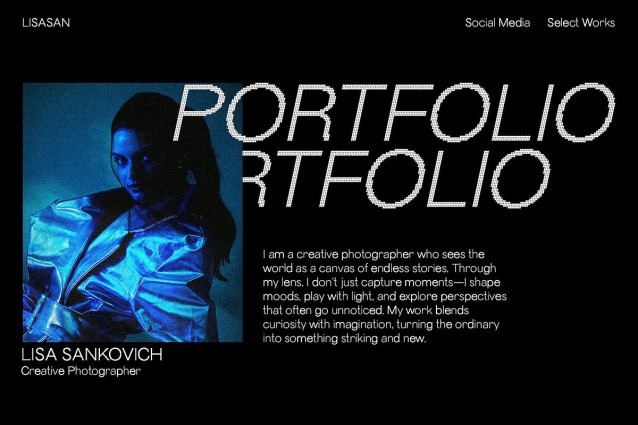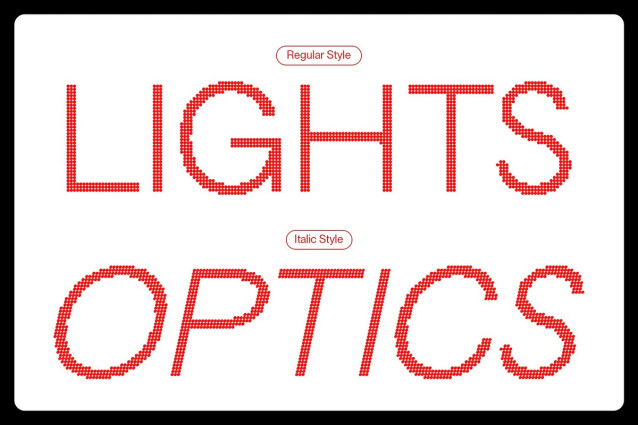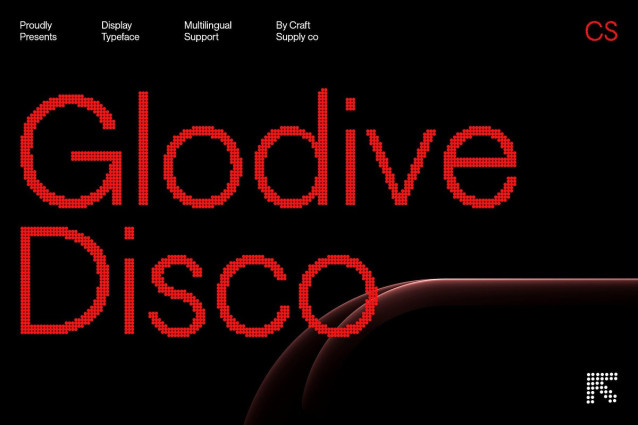
CS Glodive Disco Font – Geometric Sans Serif with Disco Sparkle This is a sleek geometric sans serif font designed to embody both modern professionalism and creative charm. With its clean structure and balanced proportions, it delivers sharp clarity for any design. What sets it apart is its subtle disco sparkle effect, which introduces a glamorous flair perfect for projects that need to balance sophistication with visual excitement.
Sleek Modern Aesthetic Crafted with precision, reflects the strength of geometric design. Its even strokes, sharp lines, and well-structured forms create a polished appearance that communicates confidence. Makes it ideal for professional uses, such as corporate branding, editorial layouts, and promotional materials that demand a modern typeface.
Glamour Through Sparkle Effect The disco-inspired sparkle effect transforms this geometric font into something extraordinary. It adds a sense of motion and brilliance, giving headlines, titles, and logos a distinctive edge. This detail makes not just a font but a design statement blending the structure of modern sans serif with the playful energy of disco aesthetics.
Versatility for Creative Projects Whether you’re designing for fashion, luxury branding, or innovative digital campaigns, adapts effortlessly. Its geometric foundation ensures readability and professionalism, while the shimmering details make it stand out in dynamic and stylish contexts. From logos and posters to magazine layouts and packaging design, this font elevates visuals with both clarity and sparkle.